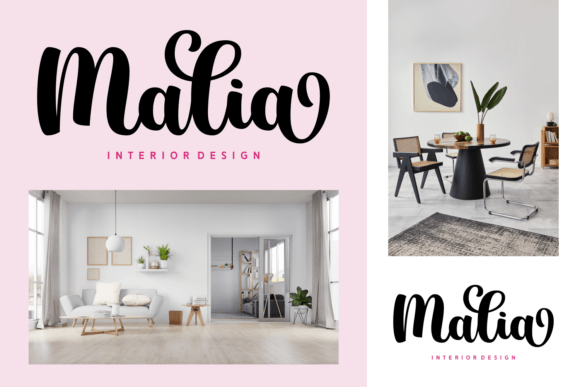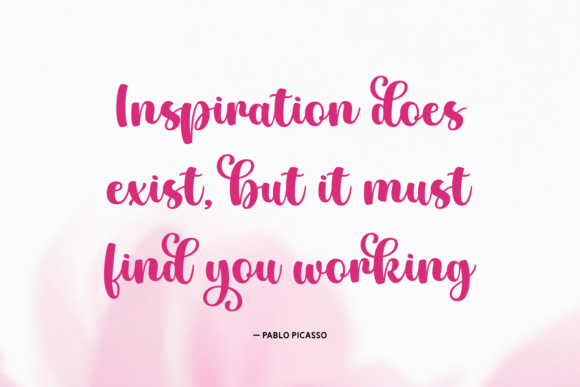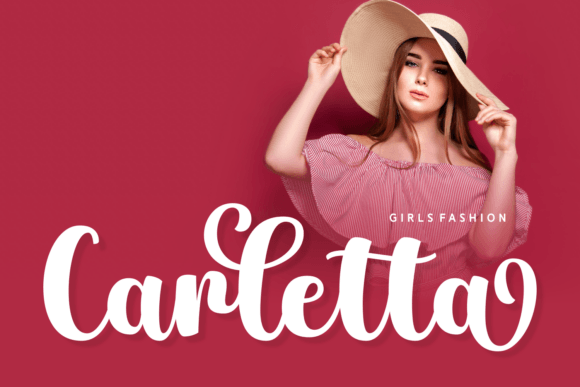
Amitta Font: Elevate Your Designs with Elegance and Sophistication
In the world of typography, fonts play a crucial role in conveying the tone and personality of a brand or design. Among the numerous fonts available, Amitta font stands out for its bold and elegant script style, perfect for creating stunning invitations, branding materials, and product packaging. In this article, we’ll explore the features and benefits of Amitta font, and how it can bring a touch of charm to your designs.
What is Amitta Font?
Amitta font is a beautifully crafted script font that exudes beauty and sophistication. Its smooth curves and stylish flow make it an ideal choice for designers and crafters looking to add a touch of elegance to their projects. The font’s bold and confident style ensures that your designs stand out from the crowd, making it perfect for high-end branding, luxury packaging, and formal invitations.
Key Features of Amitta Font
- Bold and Elegant Script Style: Amitta font boasts a bold and elegant script style that adds a touch of sophistication to any design.
- Smooth Curves and Stylish Flow: The font’s smooth curves and stylish flow create a beautiful, fluid look that’s perfect for designs that require a high level of elegance.
- Perfect for Invitations and Branding: Amitta font is ideal for designing invitations, branding materials, and product packaging, making it a versatile choice for designers and crafters.
- High-Quality Typography: The font is designed with high-quality typography in mind, ensuring that your designs look professional and polished.
Benefits of Using Amitta Font
Using Amitta font in your designs offers numerous benefits, including:
- Enhanced Elegance: The font’s bold and elegant script style adds a touch of sophistication to any design, making it perfect for high-end branding and luxury packaging.
- Increased Versatility: Amitta font can be used in a variety of design applications, from invitations and branding to product packaging and more.
- Improved Readability: The font’s clear and stylish design ensures that your text is easy to read, making it perfect for designs that require a high level of legibility.
- Unique and Memorable: Amitta font’s unique and stylish design helps to create memorable and impactful designs that stand out from the crowd.
Design Applications for Amitta Font
Amitta font is perfect for a variety of design applications, including:
- Invitations: Use Amitta font to create stunning invitations for weddings, parties, and other special events.
- Branding: The font’s bold and elegant script style makes it perfect for high-end branding and luxury packaging.
- Product Packaging: Amitta font is ideal for designing product packaging that requires a high level of elegance and sophistication.
- Stationery: Use the font to create stylish and elegant stationery, including letterheads, business cards, and more.
Tips for Using Amitta Font
To get the most out of Amitta font, follow these tips:
- Use it Sparingly: Use Amitta font sparingly to create emphasis and add a touch of elegance to your designs.
- Pair it with Other Fonts: Pair Amitta font with other fonts to create a unique and stylish look.
- Experiment with Colors: Experiment with different colors to find the perfect combination that complements Amitta font.
- Pay Attention to Kerning: Pay attention to kerning to ensure that your text looks professional and polished.
Amitta font is a beautiful and elegant script font that’s perfect for designers and crafters looking to add a touch of sophistication to their designs. With its bold and confident style, smooth curves, and stylish flow, Amitta font is ideal for creating stunning invitations, branding materials, and product packaging. By following the tips outlined in this article, you can get the most out of Amitta font and create designs that are both memorable and impactful.